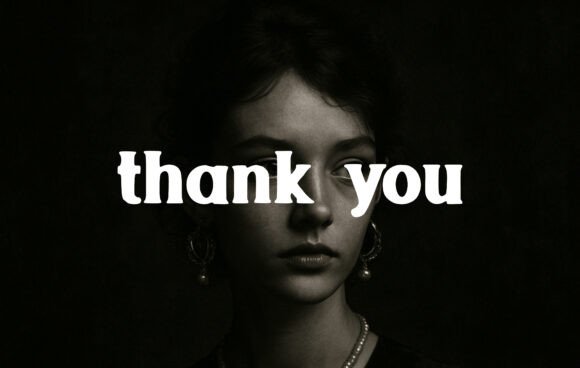
Introducing Angelou Font: A Bold and Expressive Serif Display Font
Angelou is a stunning serif display font that exudes a dramatic personality and vintage charm. Designed to make a statement, this font is perfect for editorial headlines, book covers, fashion branding, and impactful posters. With its thick, sculpted letterforms and high contrast, Angelou balances elegance with strength, making it a versatile choice for various design projects.
The Unique Characteristics of Angelou Font
One of the standout features of Angelou is its unique organic shapes, which give the font a handcrafted, almost printed quality. The irregular, ink-bleed-inspired terminals seen in the āgā and āeā are particularly noteworthy, adding a touch of artistic flair to the font. These distinctive elements, paired with a classic serif foundation, make Angelou a timeless yet contemporary choice for designers.
The Design Inspiration Behind Angelou
Angelou’s design is inspired by the elegance and sophistication of vintage typography. The font’s creator aimed to craft a serif display font that would evoke a sense of drama and luxury, while still being approachable and legible. The result is a font that feels both classic and modern, making it perfect for a wide range of design applications.
Key Features of Angelou Font
- Bold and Expressive: Angelou is a bold and expressive serif display font, designed to make a statement.
- Vintage Charm: The font’s vintage charm and classic serif foundation give it a timeless feel.
- Unique Organic Shapes: The irregular, ink-bleed-inspired terminals and other organic shapes add a touch of artistic flair.
- High Contrast: The font’s high contrast between thick and thin strokes creates a sense of drama and elegance.
- Handcrafted Quality: Angelou’s letterforms have a handcrafted, almost printed quality, making it perfect for designs that require a personal touch.
Use Cases for Angelou Font
Angelou is a versatile font that can be used in a variety of design projects, including:
- Editorial Headlines: Angelou’s bold and expressive nature makes it perfect for headlines in editorials, magazines, and newspapers.
- Book Covers: The font’s vintage charm and classic serif foundation make it a great choice for book covers, particularly for fiction and non-fiction books.
- Fashion Branding: Angelou’s elegance and sophistication make it a great fit for fashion branding, including logos, packaging, and advertising materials.
- Impactful Posters: The font’s bold and expressive nature makes it perfect for creating impactful posters for events, promotions, and social causes.
Tips for Using Angelou Font Effectively
To get the most out of Angelou, here are some tips for using the font effectively:
- Use it sparingly: Angelou is a bold and expressive font, so use it sparingly to avoid overwhelming the reader.
- Pair it with a neutral font: Pair Angelou with a neutral font to create contrast and balance in your design.
- Experiment with colors: Angelou looks great in a variety of colors, so experiment with different colors to find the one that works best for your design.
- Pay attention to kerning: As with any font, pay attention to kerning to ensure that the letters are spaced evenly and look balanced.
Angelou is a stunning serif display font that offers a unique blend of elegance, sophistication, and artistic flair. With its bold and expressive nature, vintage charm, and classic serif foundation, Angelou is perfect for a wide range of design projects, from editorial headlines to fashion branding. By following the tips outlined above, you can use Angelou effectively and create stunning designs that capture the attention of your audience.